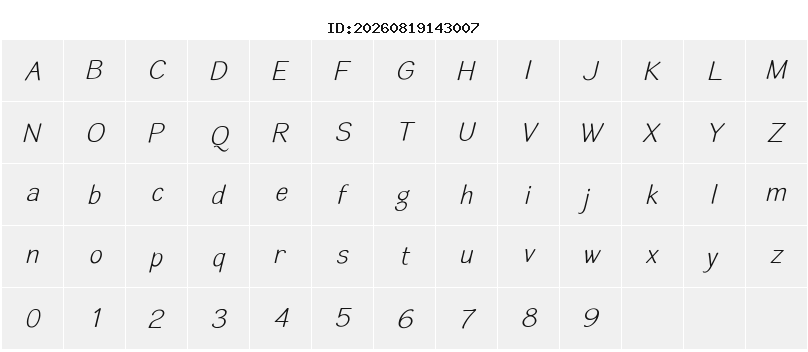
• Font Name: Simiate Oblique
• Manufacturer: Typotheticals
About Simiate Oblique.ttf
Simiate Oblique.ttf is a modern, elegant sans-serif font designed for ultimate readability and visual harmony. Perfect for branding, headlines, web design, and print materials.